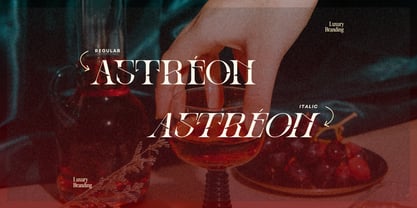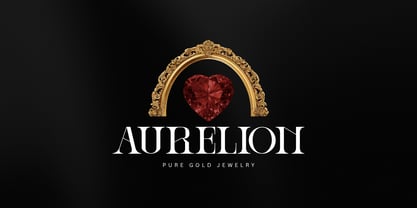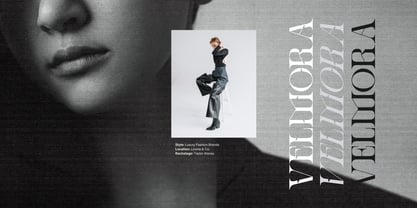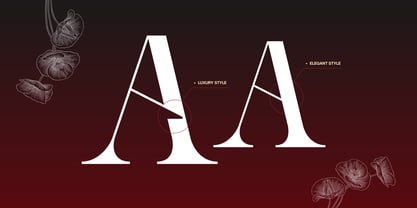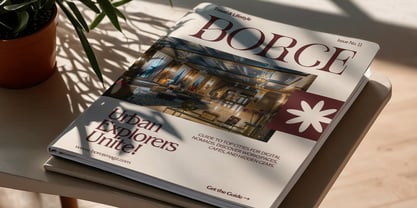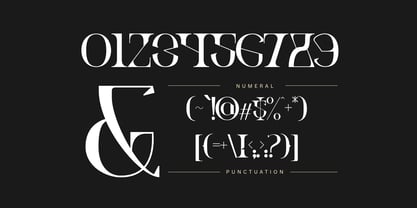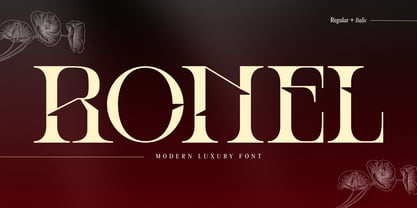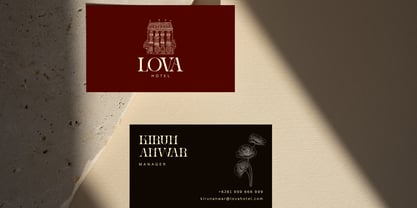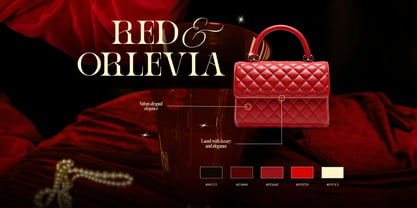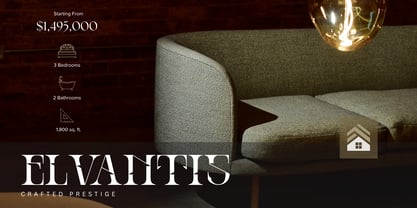
Ronel Luxury
by Illushvara
The Ronel Luxury Font Family was designed by Bayu Suwirya and published by Illushvara. Ronel Luxury contains 2 styles and family package options. More about this family
Ronel Luxury is a modern all-caps typeface crafted to deliver elegance and high-end appeal in every detail. Featuring both Regular and Italic styles, this font combines clean structure with unique flowing lines that add a distinctive, premium character. Perfect for luxury branding, logos, fashion labels, and upscale packaging, Ronel Luxury creates a bold yet refined visual identity, making every design feel exclusive, stylish, and timeless.